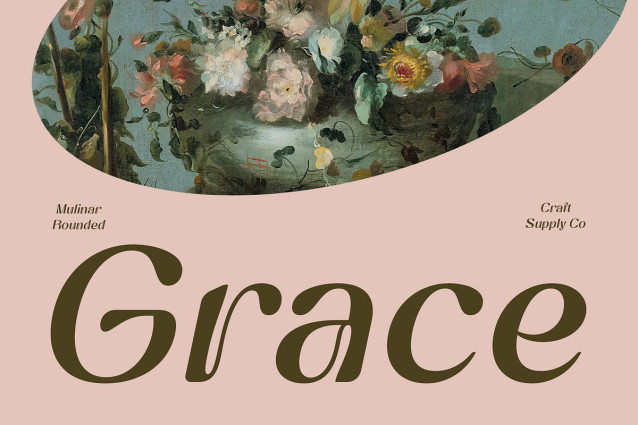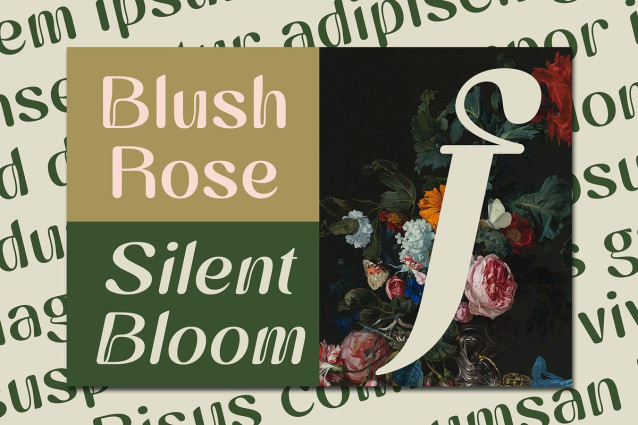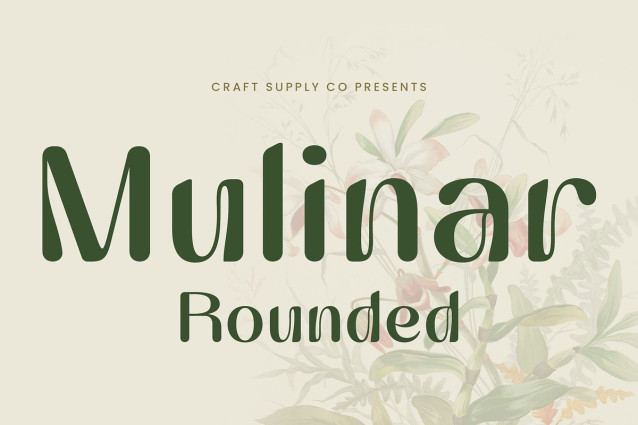
Mulinar Rounded Font
Mulinar Rounded is a modern display sans-serif font that merges flowing Art Nouveau elements with smooth, rounded forms. Its gentle curves and fluid lines create a harmonious, graceful appearance that brings elegance and softness to any design.
Nature-Inspired Aesthetic with Contemporary Beauty Inspired by the organic shapes found in nature, Mulinar Rounded captures the spirit of Art Nouveau while maintaining a modern, minimalist sensibility. Its refined structure and subtle rhythm give it an aesthetic appeal ideal for creative, feminine, and elegant visual identities. Rooted in the natural rhythm and curves of Art Nouveau, this font embraces an organic design language that feels both timeless and modern. The rounded terminals and smooth transitions between strokes evoke the movement of nature—leaves, vines, and water—while maintaining a contemporary clarity that enhances legibility and sophistication.
Perfect for Feminine Branding and Editorial Design Whether used for stylish branding, beauty product packaging, or high-end editorial layouts, Mulinar Rounded delivers a refined and artistic impression. Its soft presence and versatile form make it suitable for projects that emphasize sophistication and beauty.
A Unique Blend of Classic Artistry and Modern Style Mulinar Rounded seamlessly balances classic uniqueness with modern grace. It’s a perfect choice for designers seeking a font that speaks to timeless artistry while remaining fresh, elegant, and contemporary.